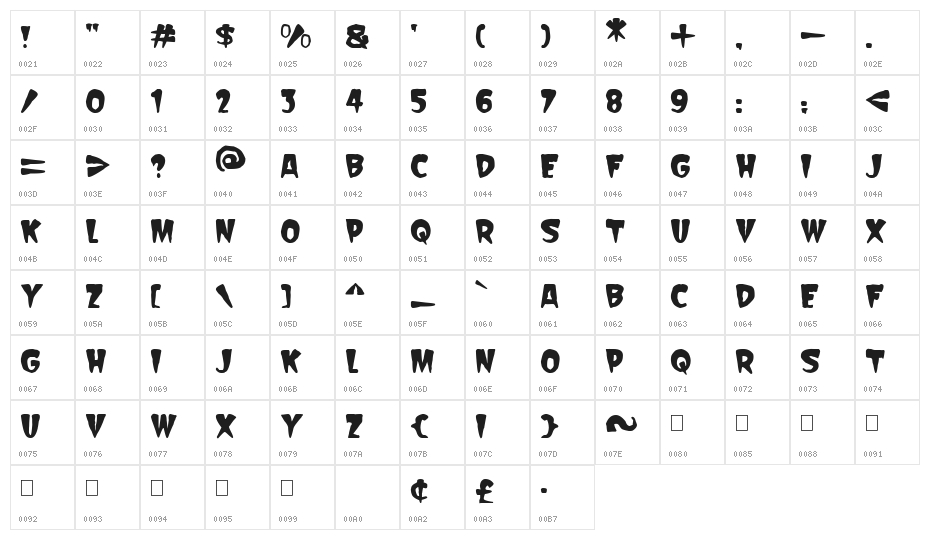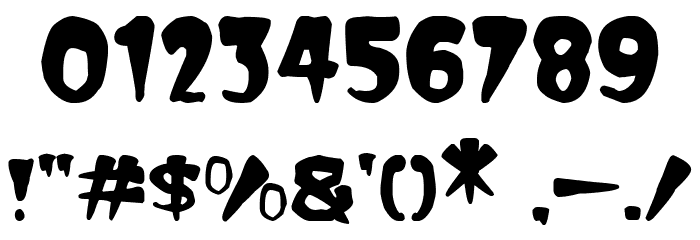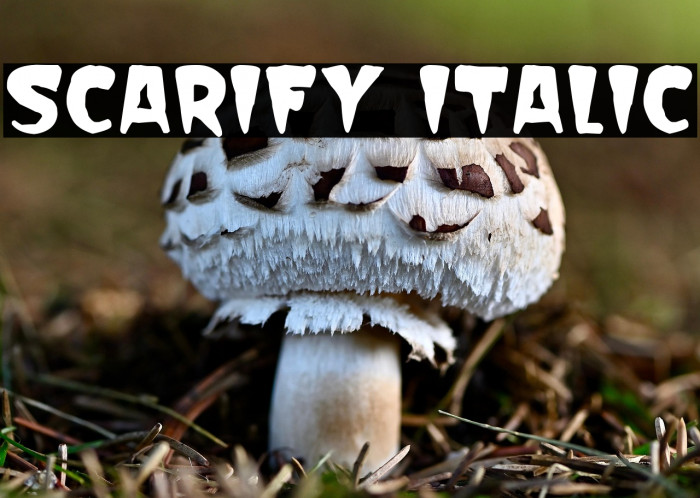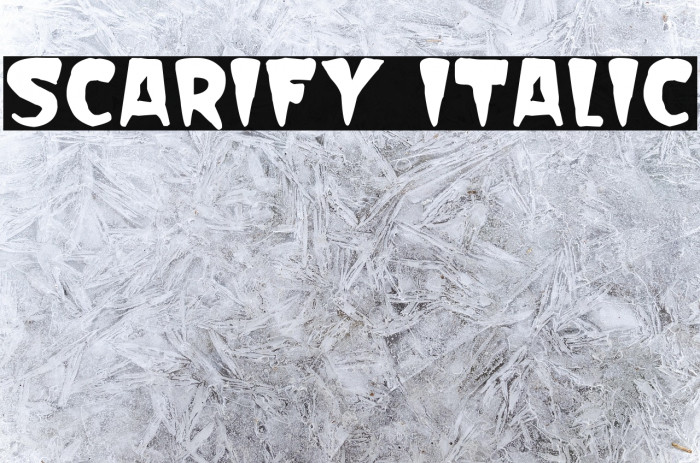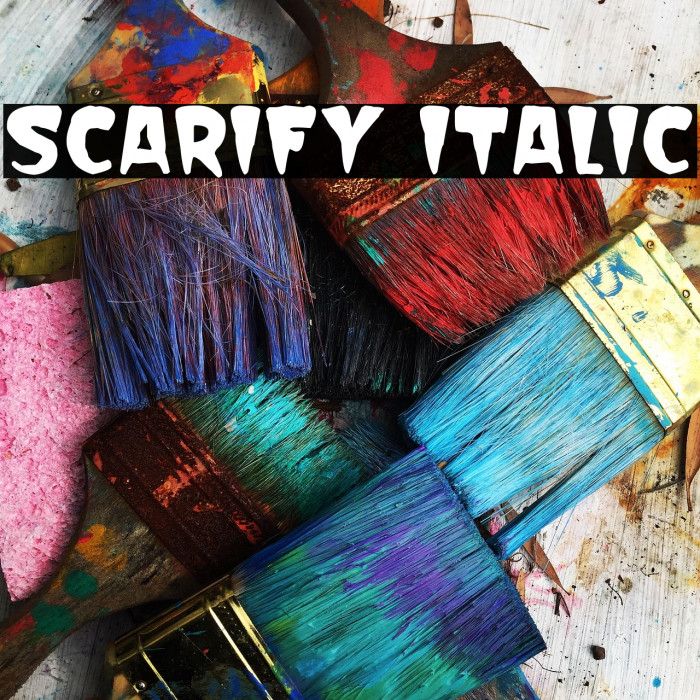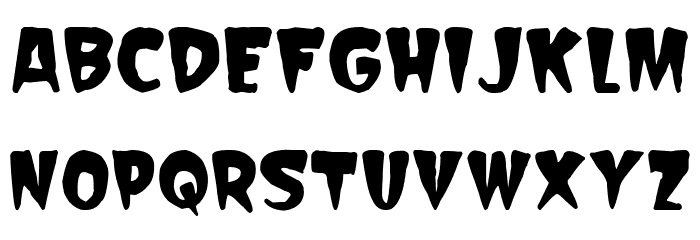
Scarify Italic Font
This font features a bold and playful style with a slightly irregular and hand-drawn appearance. The characters are thick and have a strong presence, making them stand out. The edges are rounded and uneven, adding to the casual and informal feel. The font maintains a consistent weight throughout, with each letter exhibiting a unique flair. The numbers and special characters follow the same design principles, ensuring a cohesive look across all elements. This font is ideal for projects that require a fun and energetic vibe.
| Overall Style | Playful, Casual, Hand-drawn |
| Proposed Projects | Perfect for children's books, playful branding, posters, and creative projects that need a lively touch. |